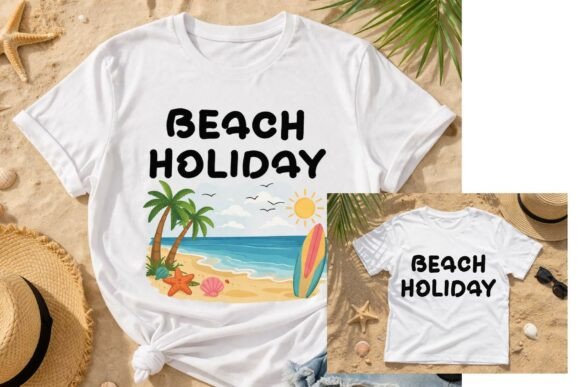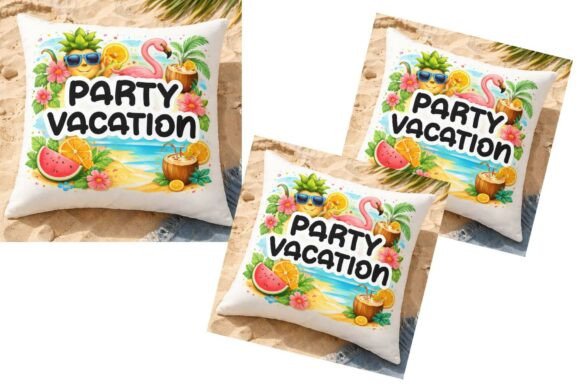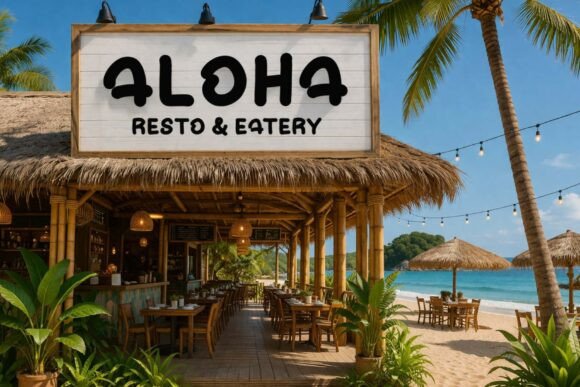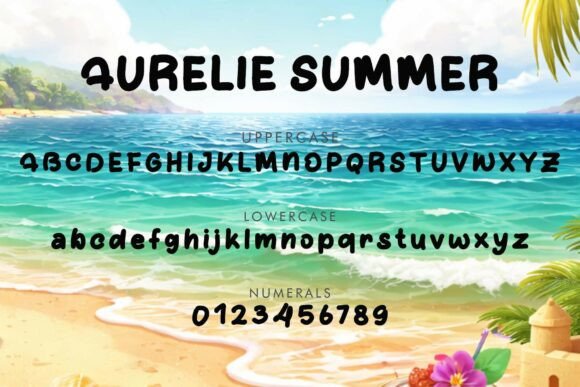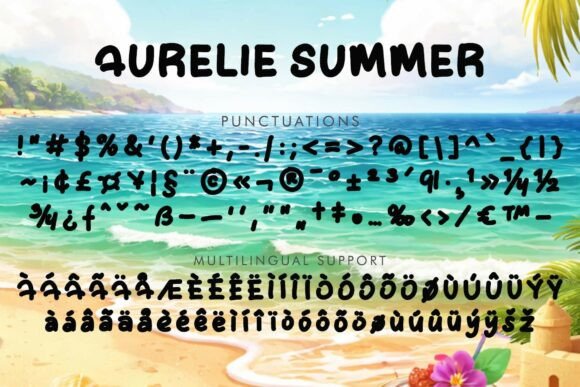
Aurelie Summer Font: The Perfect Elegant Display Font for Your Creative Projects
Are you a designer or crafter looking for a unique and elegant display font to elevate your creative projects? Look no further than the Aurelie Summer Font. This stunning font is perfect for a variety of applications, from summer and holiday-themed designs to logos, stickers, and more.
What Makes Aurelie Summer Font So Special?
The Aurelie Summer Font is a standout font that features a range of characteristics that make it perfect for a wide range of creative projects. Some of its key features include:
- Uppercase and lowercase letters: The Aurelie Summer Font includes both uppercase and lowercase letters, making it perfect for use in a variety of designs.
- Numerals and punctuations: The font also includes numerals and punctuations, ensuring that you have everything you need to create professional-looking designs.
- Multilingual support: The Aurelie Summer Font supports multiple languages, making it a great choice for designers and crafters who work with clients from around the world.
Perfect for Summer and Holiday-Themed Designs
The Aurelie Summer Font is particularly well-suited for summer and holiday-themed designs. Its elegant and refined appearance makes it perfect for use in:
- Summer-themed prints and posters
- Holiday and vacation-themed designs
- Easter and Christmas designs
- Teacher’s Day and Mother’s Day designs
Whether you’re creating designs for a client or for your own personal projects, the Aurelie Summer Font is sure to add a touch of elegance and sophistication.
Ideal for a Variety of Creative Projects
The Aurelie Summer Font is a versatile font that can be used in a wide range of creative projects, including:
- T-shirts and bags
- Comics and cartoons
- Logos and stickers
- Coloring books and more
Its unique and elegant appearance makes it perfect for designers and crafters who want to add a touch of personality to their designs.
Why Choose the Aurelie Summer Font?
There are many reasons why the Aurelie Summer Font is a great choice for designers and crafters. Some of the benefits of using this font include:
- Unique and elegant appearance: The Aurelie Summer Font has a distinctive and refined appearance that sets it apart from other fonts.
- High level of versatility: The font can be used in a wide range of creative projects, from summer-themed designs to logos and stickers.
- Multilingual support: The font supports multiple languages, making it a great choice for designers and crafters who work with clients from around the world.
The Aurelie Summer Font is a unique and elegant display font that is perfect for a wide range of creative projects. Its uppercase and lowercase letters, numerals, punctuations, and multilingual support make it a versatile font that can be used in everything from summer-themed designs to logos and stickers. Whether you’re a designer or crafter, the Aurelie Summer Font is sure to be a valuable addition to your font collection.